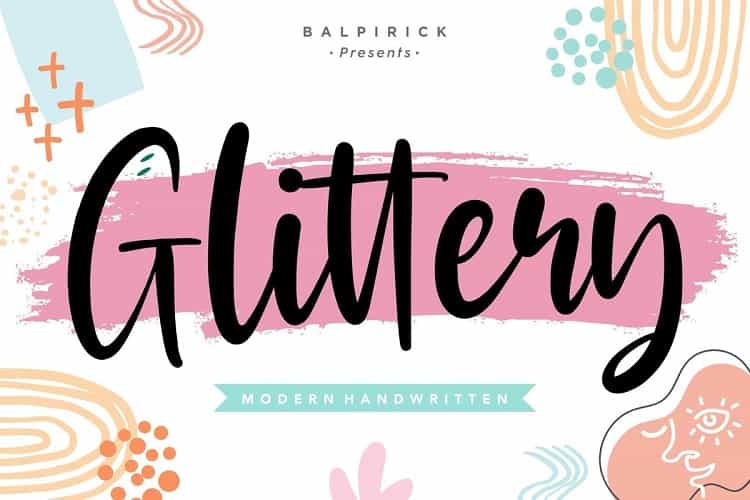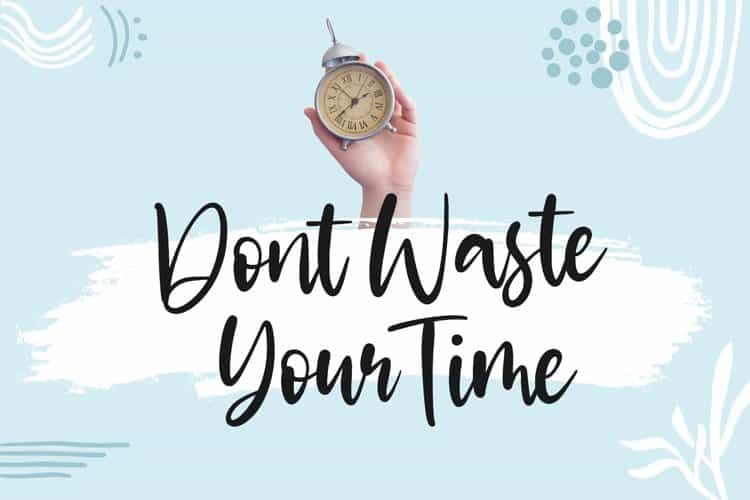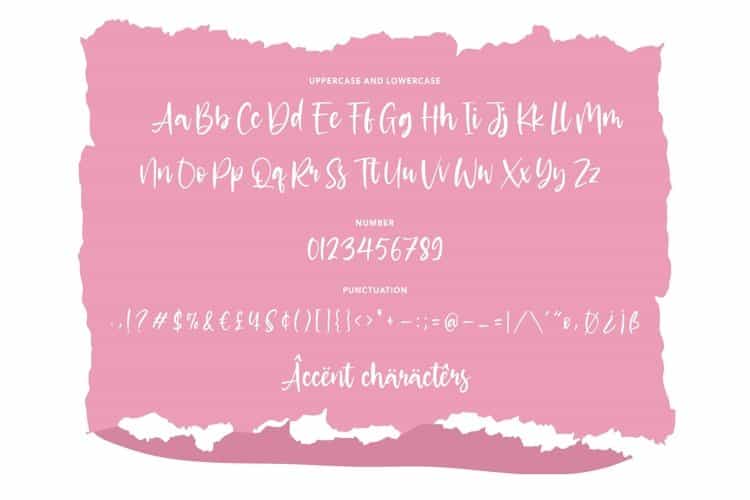
Discover Glittery Modern Handwritten Font, part of the Commercial Brush Handwritten collection—a versatile and unique font perfect for adding a personal touch to your projects. Download it for free and enjoy crafting designs with style, from invitations to social media posts. This font is available exclusively for personal use, giving you the freedom to create without limits. Unlock your creativity with Glittery Modern Handwritten Font today!
Glittery is a typeface, with smooth and elegant lines. It’s ideal for design projects like packaging, branding, social media posts, weddings or adding a touch of style to any background.